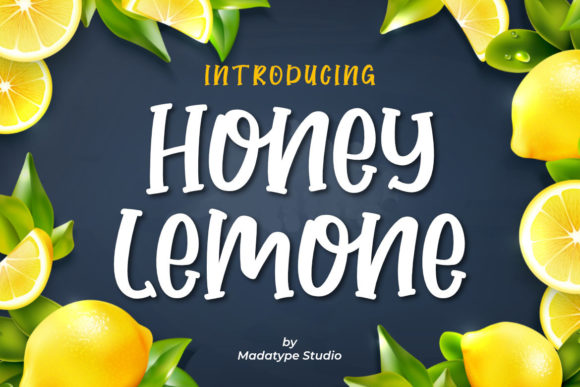
Journey into the whimsical world of Honey Lemone, a display font that radiates joy and uniqueness. Created by the talented Typerex, this font is a visual masterpiece meticulously crafted to elevate your creative visions to unprecedented heights.
Honey Lemone possesses an innate charm that effortlessly captures hearts. Its playful and quirky nature dances across each letter, adding a touch of whimsy to your designs. Whether you're a seasoned designer or just starting, Honey Lemone is the perfect companion for unleashing your imagination.
With Honey Lemone, the ordinary becomes extraordinary. Its captivating curves and delightful details demand attention, making your designs shine brighter than ever before. Let Honey Lemone be the star of your next project, whether it's a vibrant logo, an eye-catching poster, or an enchanting invitation.
But Honey Lemone's allure extends far beyond its captivating aesthetics. This font is a workhorse, a reliable and versatile performer that adapts seamlessly to any creative challenge. Its crisp lines and balanced proportions ensure readability even at small sizes, making it the ideal choice for user interfaces, mobile apps, and other digital spaces.
In the realm of branding, Honey Lemone is a true gem. Its distinctive personality adds a layer of depth and memorability to your brand identity, leaving a lasting impression on your audience. From playful startups to established enterprises, Honey Lemone has the power to transform your brand into an unforgettable experience.
With Honey Lemone, your creative potential knows no bounds. Its versatility shines in a myriad of applications, from whimsical illustrations to captivating social media posts. Let Honey Lemone infuse your designs with a touch of magic, turning them into masterpieces that captivate and inspire.